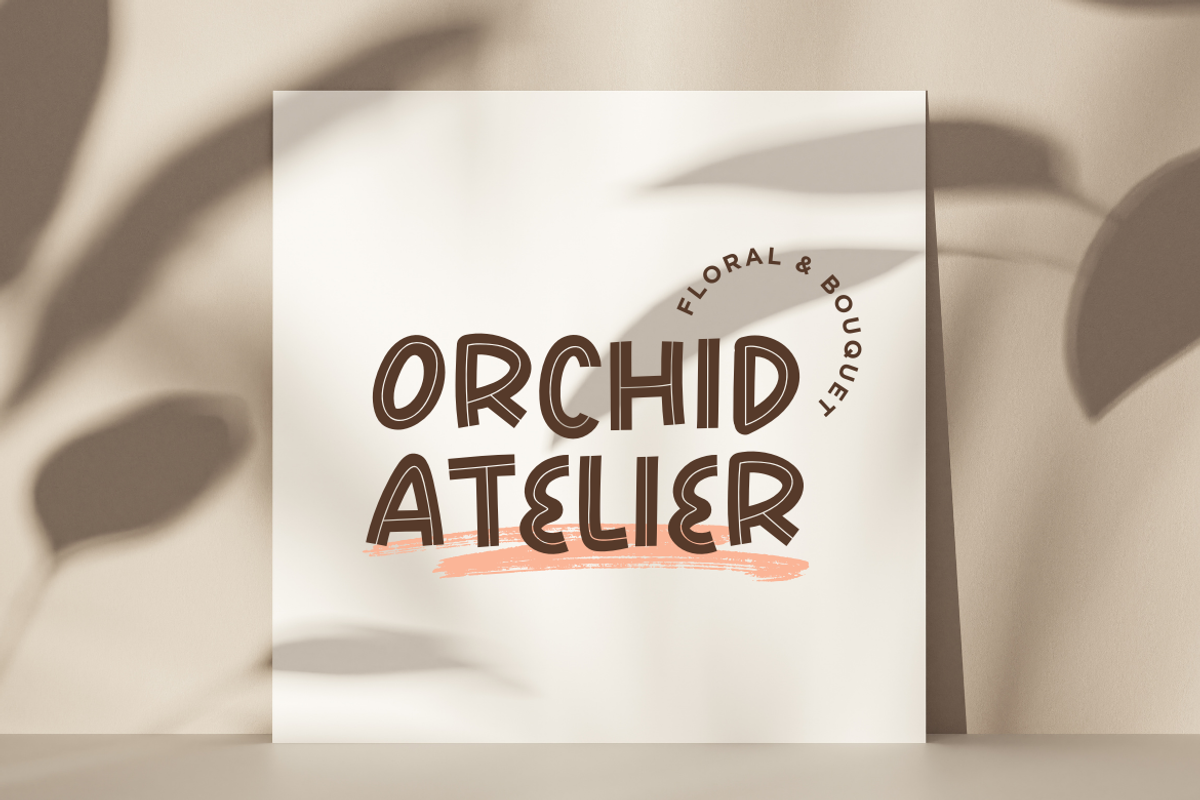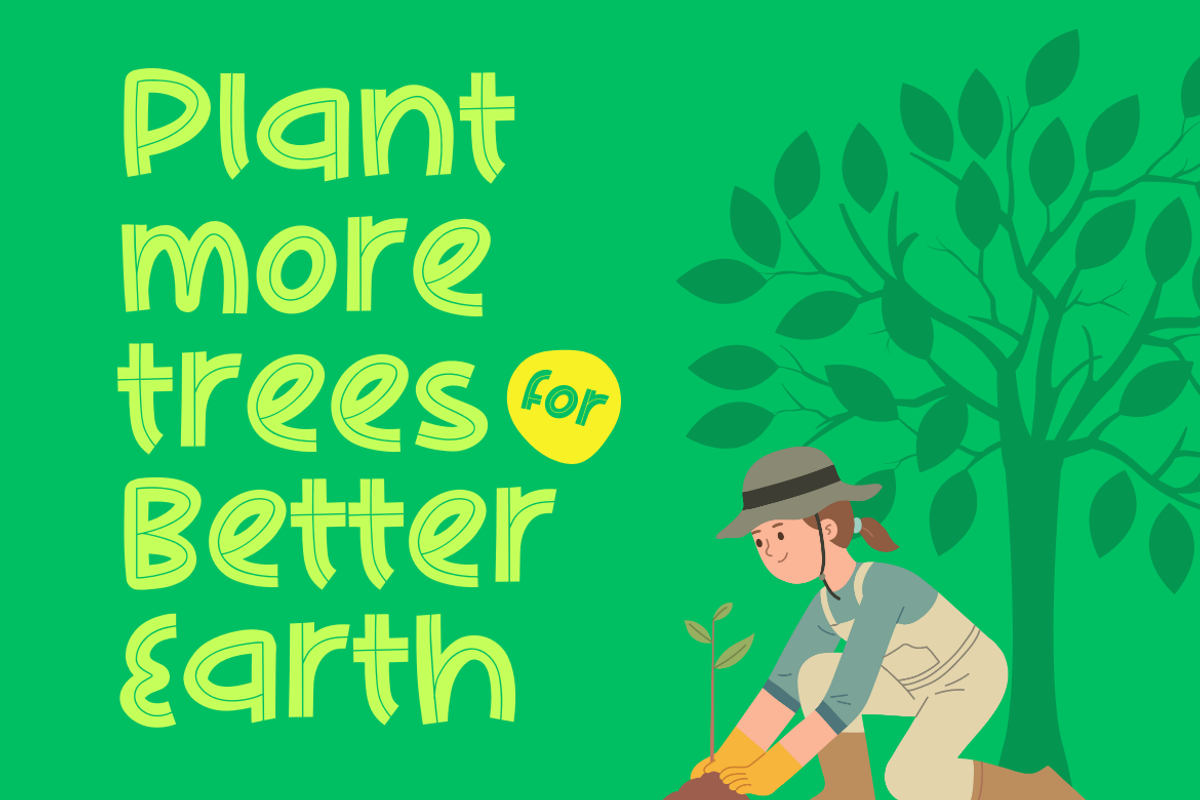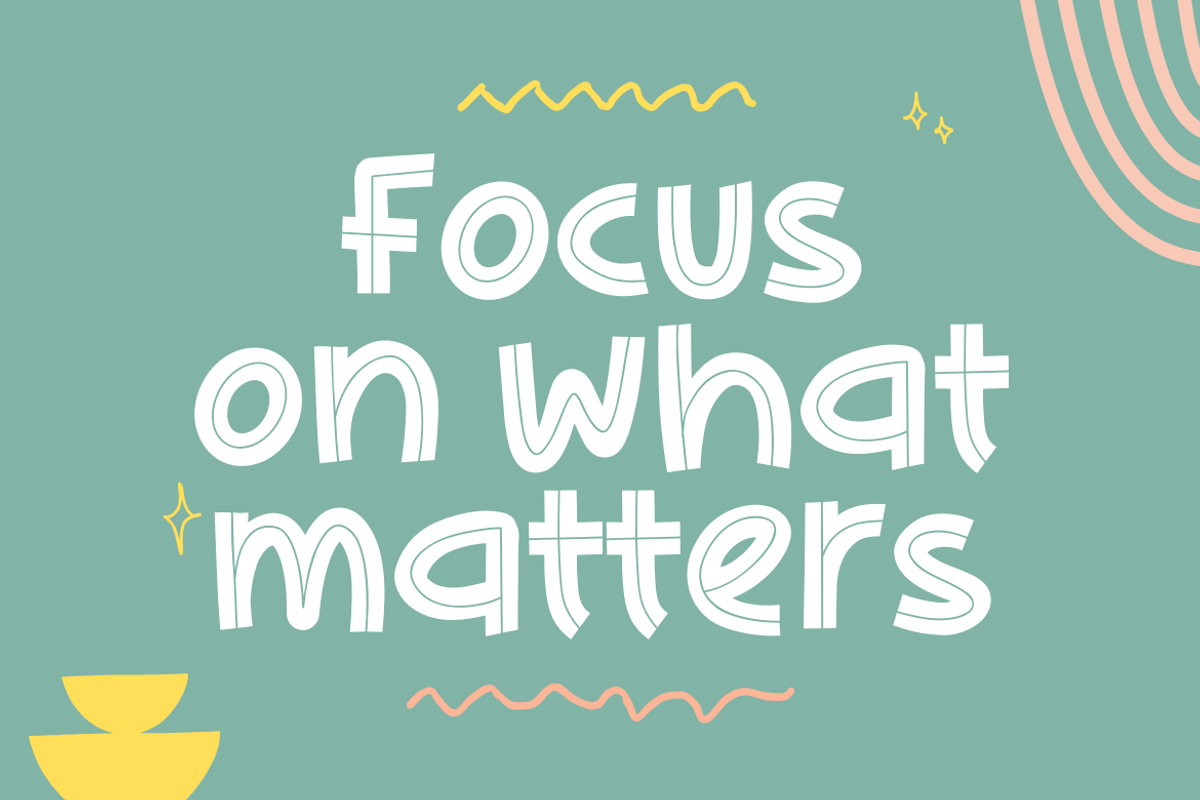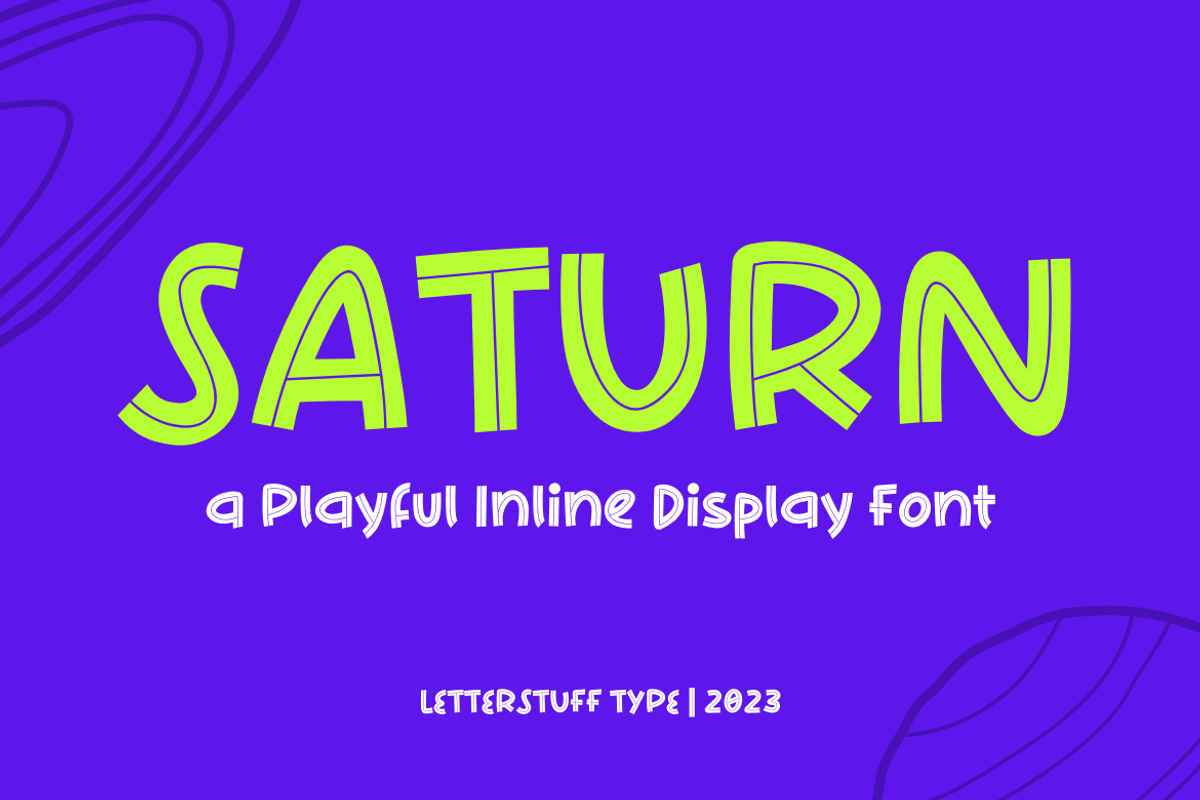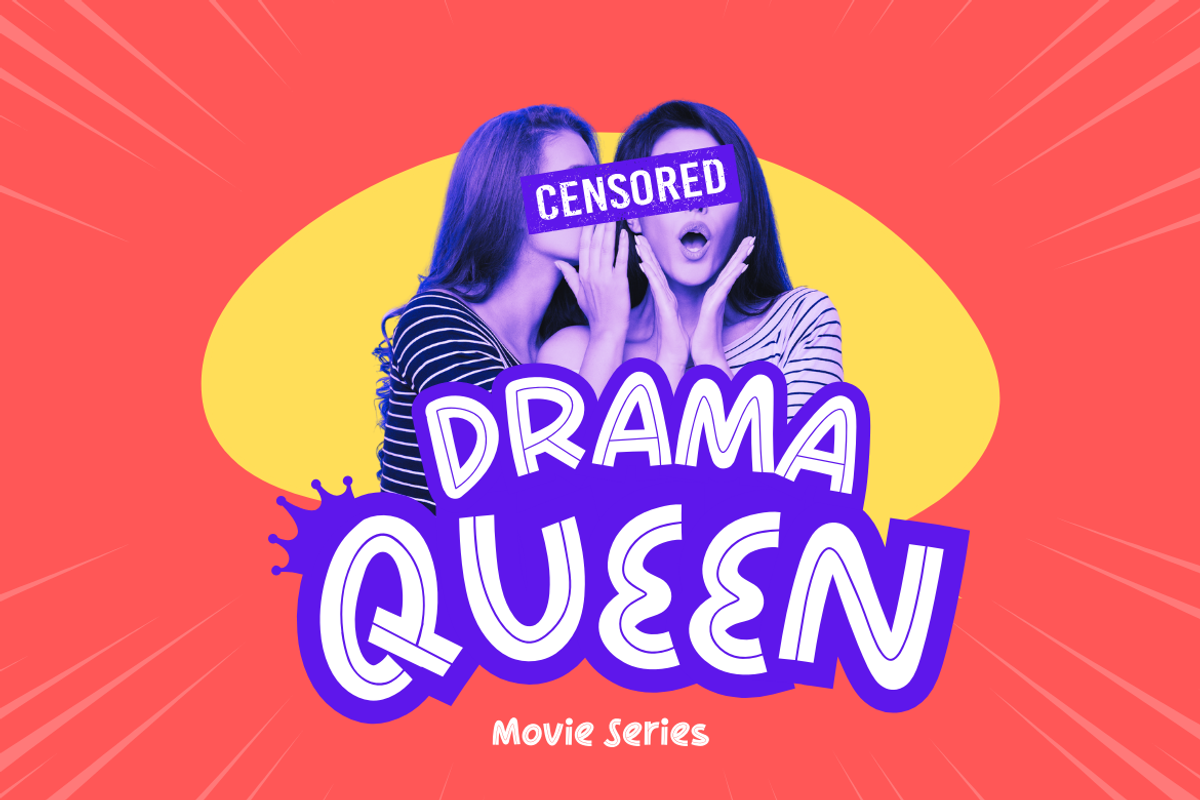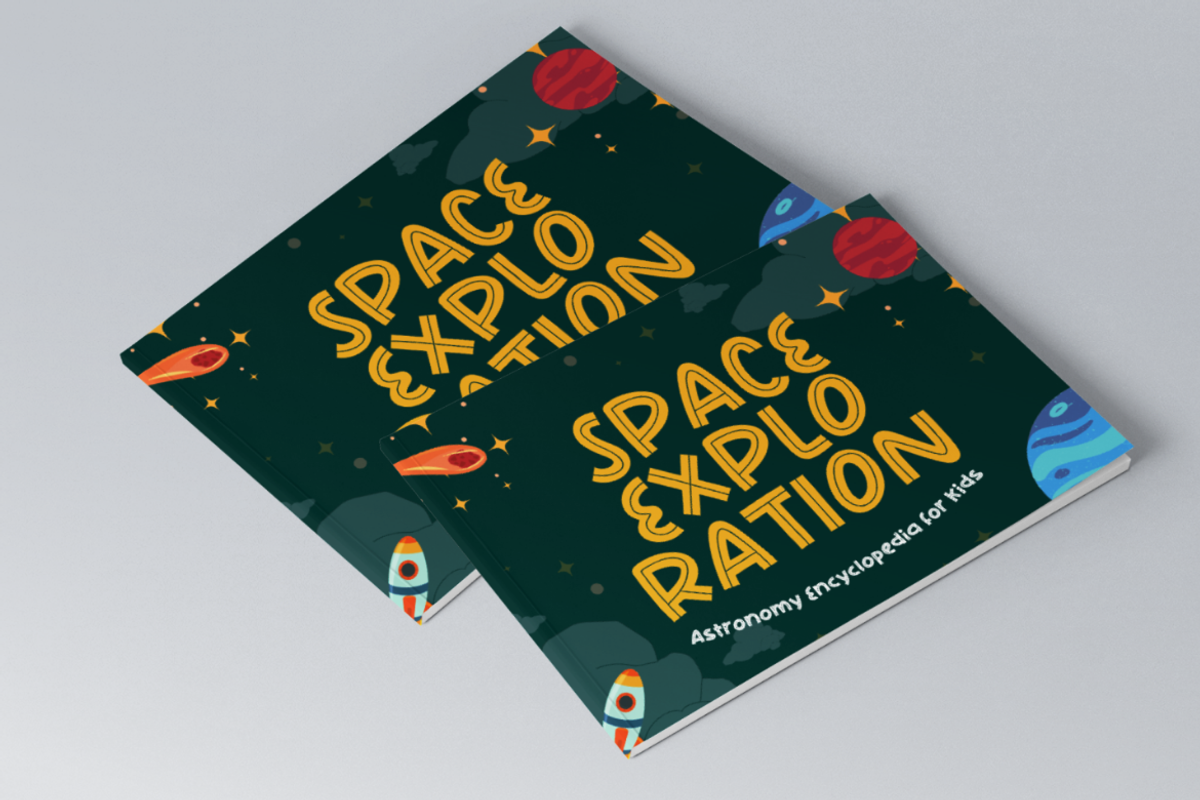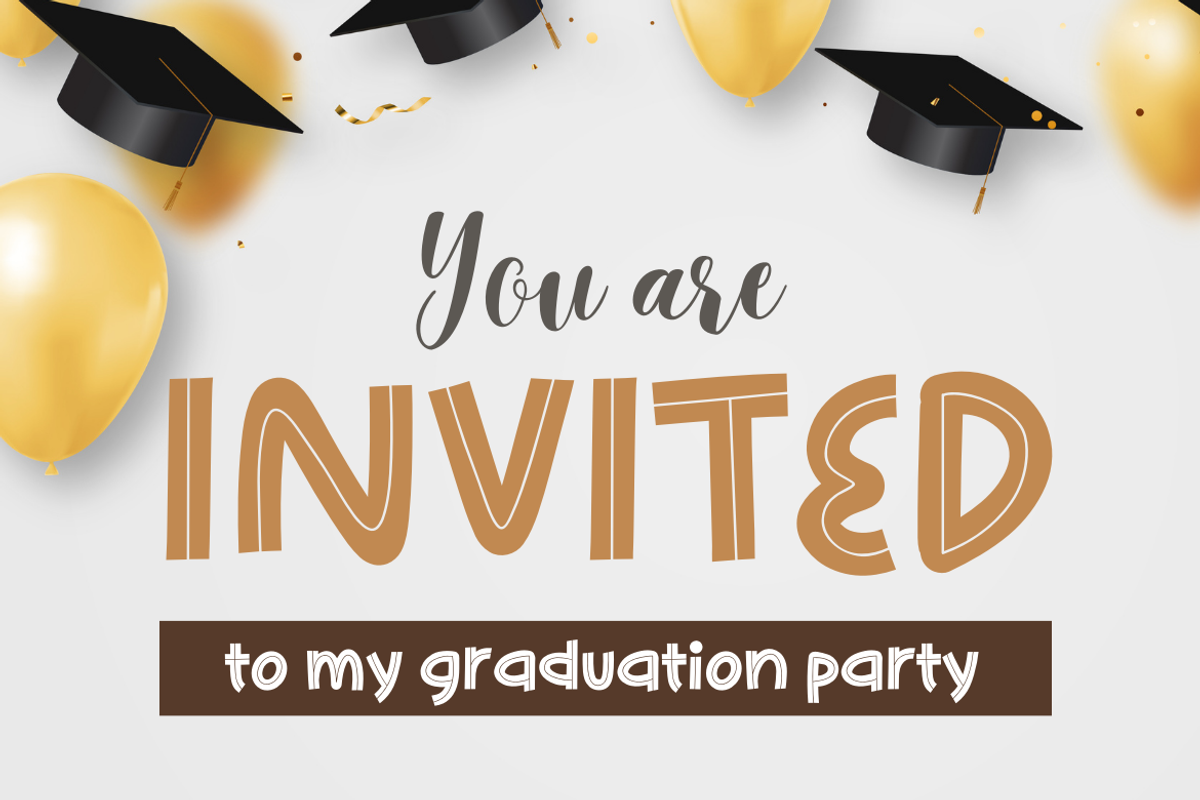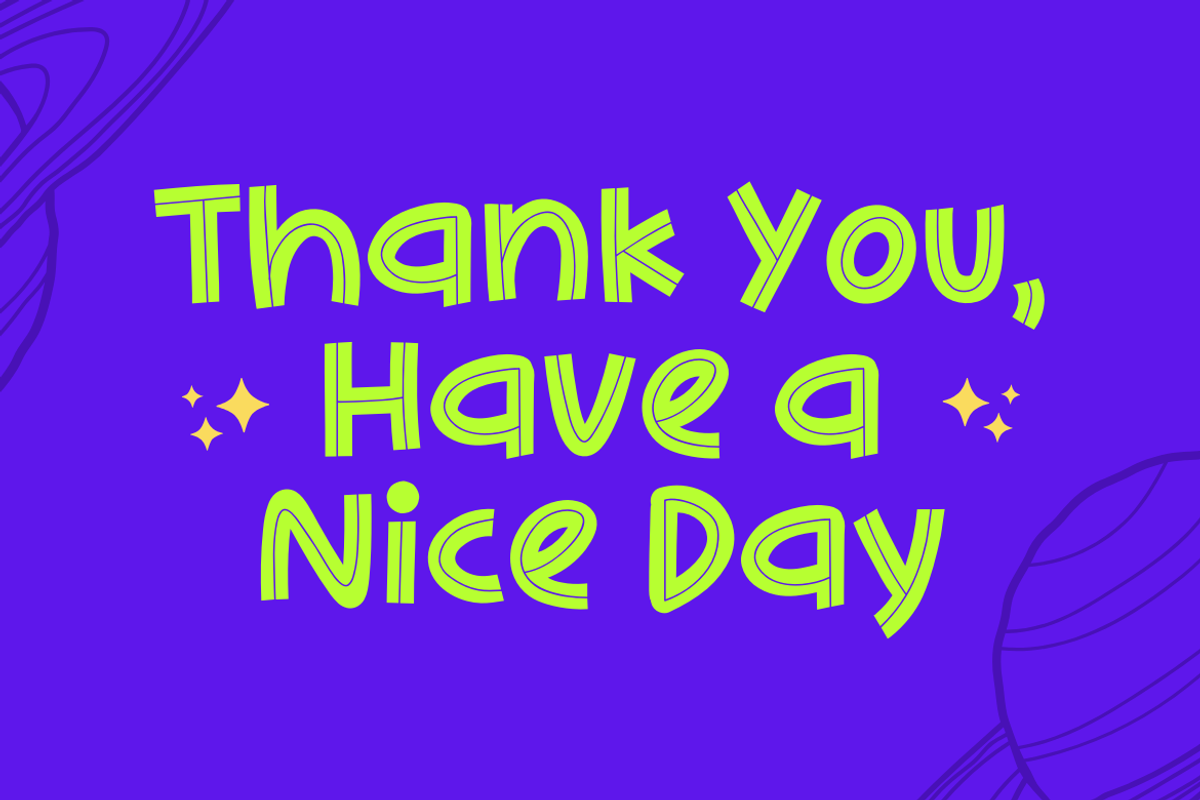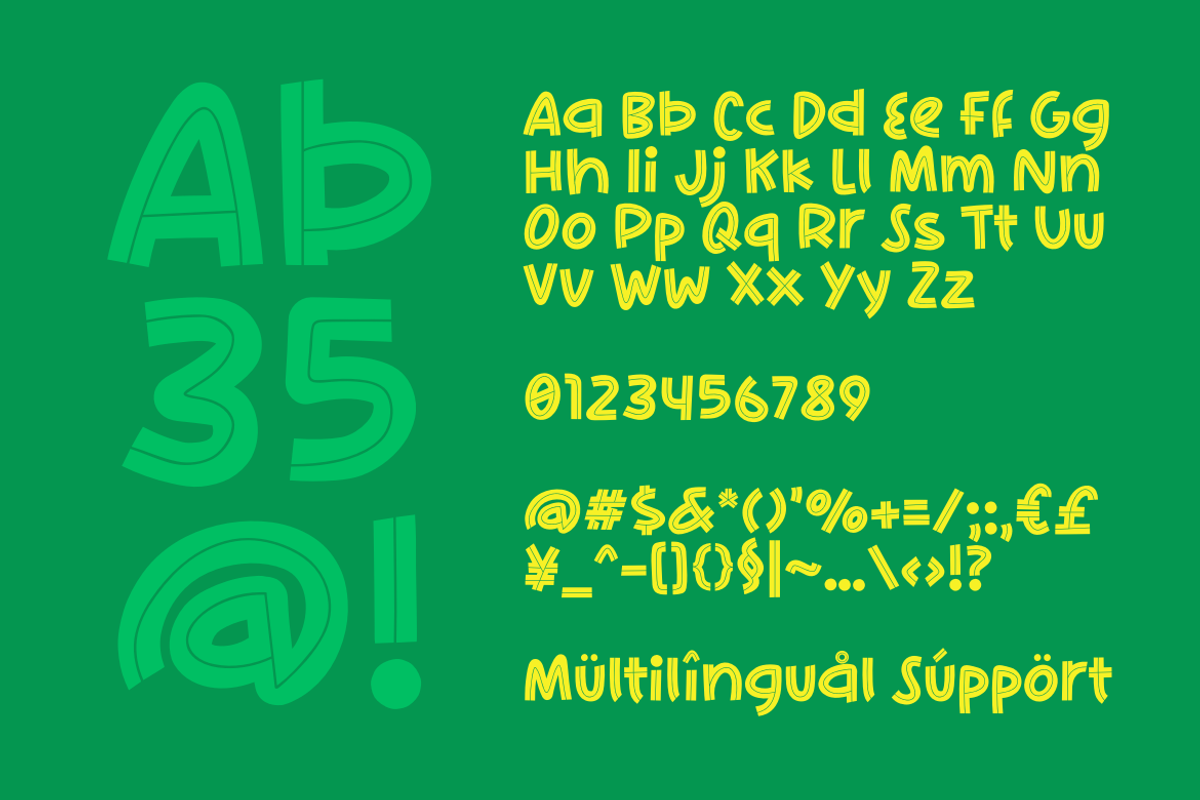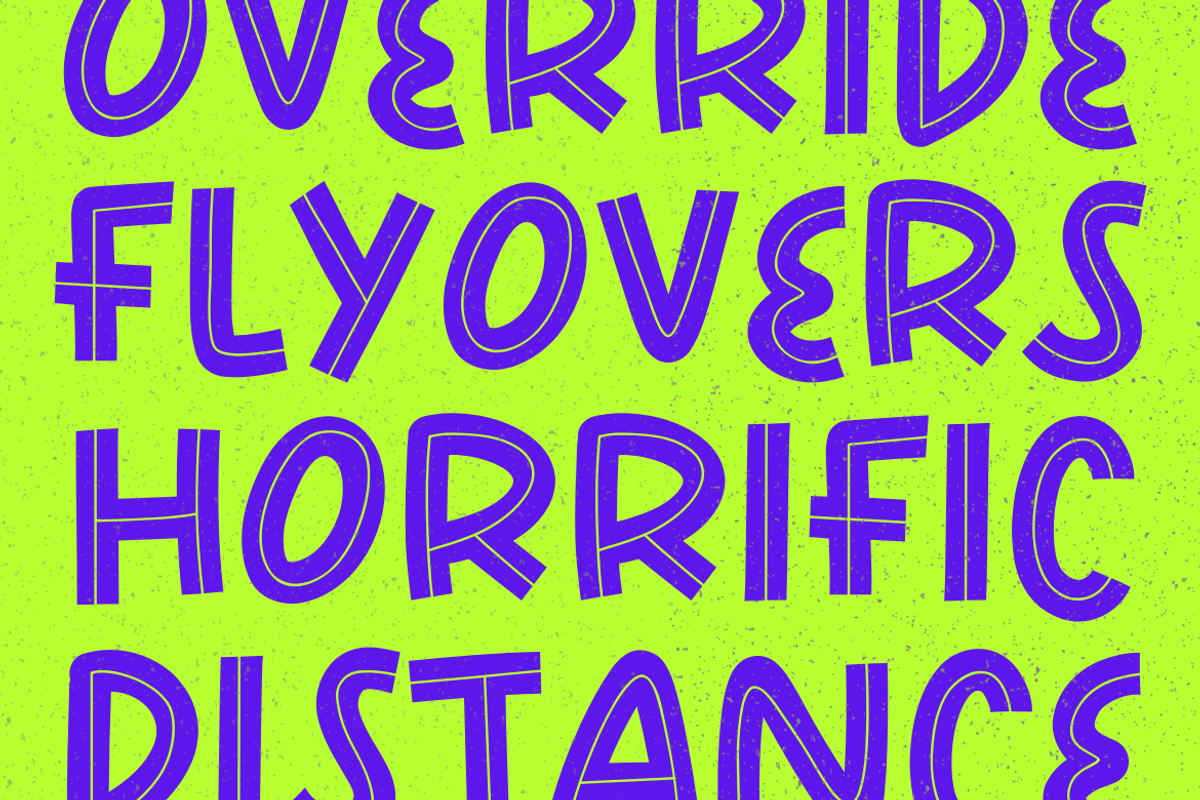
Saturn Font
Introducing "Saturn," a striking display font designed to add a playful yet bold flair to your projects. With its unique inline style, Saturn exudes modern elegance while retaining a sense of whimsy. Whether used for posters, packaging, or editorial design, this versatile typeface commands attention with its dynamic presence. Let Saturn's captivating charm elevate your designs and leave a lasting impression on your audience.
- Numeral & punctuation
- Multilingual characters support